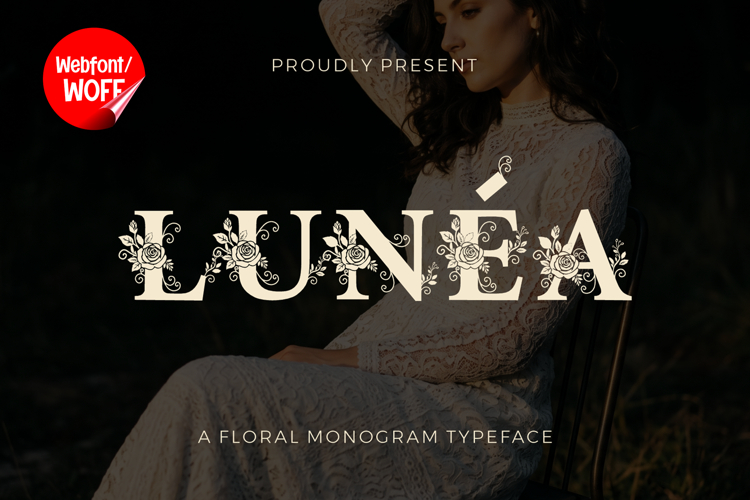
Lunéa | Floral Monogram Webfont
In today's fast-paced digital era, the visual presentation of a website plays a monumental role in defining a corporation's branding success and online business presence. Lunea Floral Monogram Webfont arrives in specialized WOFF and WOFF2 formats fully optimized for the global internet, ensuring that the magnificent beauty of rose illustrations and creeping vines can be experienced by your site visitors instantly without compromising page loading speeds. This web-centric digital asset is developed with high-compression technology while fully preserving the smallest artistic contours of its uppercase letters. By integrating this floral monogram font into your website style sheets or CSS, you can design an interactive digital space that is not only functional for information delivery but also visually breathtaking in its presentation across smart devices and desktop monitors alike.
The standout benefit of this web-ready format is its exceptional visual responsiveness across varying screen resolutions, from compact smartphone screens and tablets to high-density retina displays. Every uppercase character adorned with botanical elements renders crisply and smoothly, entirely free from the pixelation or line distortion that can ruin online visual displays. Far from limiting its focus to large headers, this digital web asset package delivers total support for a complete set of numbers and punctuation marks. The existence of harmoniously designed numerals and sentence indicators offers web developers incredible ease when organizing blog layouts, creating artistic navigation menus, showcasing luxury fashion prices, or styling digital contact forms that remain aligned with the overarching theme of rose luxury.
Furthermore, global reach is central to this web font's architecture, achieved through a comprehensive suite of multilingual glyphs. Lunea Webfont automatically supports international character conversion for numerous languages utilizing the Latin alphabet, making it a breeze for global e-commerce platforms or lifestyle blogs to deliver localized content without technical display errors. Through this dependable technical framework, your website will radiate immense professionalism, boosting customer trust and escalating conversion rates for beauty products, fine jewelry, online wedding planning services, photography studios, or interior design portfolios. A beautifully curated floral layout in the digital realm also contributes positively to user readability, encouraging visitors to browse comfortably for longer periods.
By embedding these rose-adorned digital letters into your interface architecture, you establish a powerful emotional connection with your target audience through the unmatched power of elegant typography. Its ease of integration across modern CMS platforms makes it the most practical, quick, and efficient solution for web designers aiming to build world-class digital experiences that are competitive, contemporary, and deeply rooted in classic luxury. Turn every single webpage into a living canvas of high character with this reliable, state-of-the-art web font technology.
Lunéa
Lunea Webfont